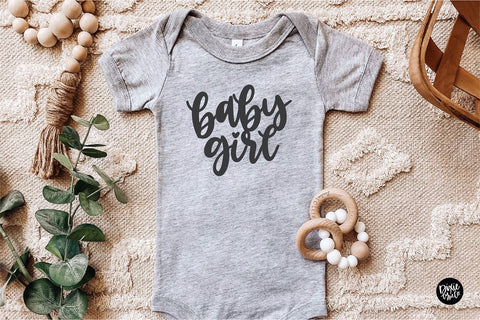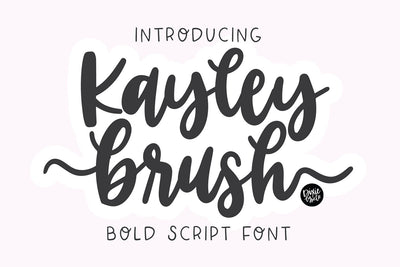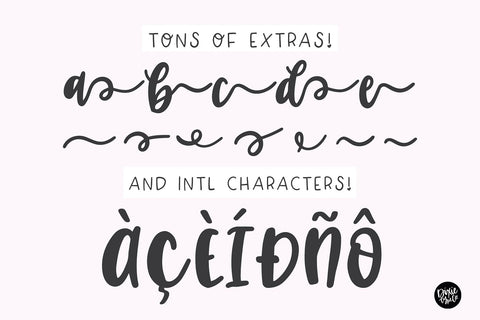
Kayley Brush Flourish Font
"Kayley Brush" a bold cursive font with flourishes!
Kayley Brush is a beautiful hand-lettered script font. This font includes extra flourishes so you can customize your letters as you please! Just weld them to your letters to customize. Each lowercase letter comes with 2 extra flourishes letters.
-Upper and lowercase glyphs
-Flourished letters for each letter
-basic punctuation characters
-numbers
-International characters